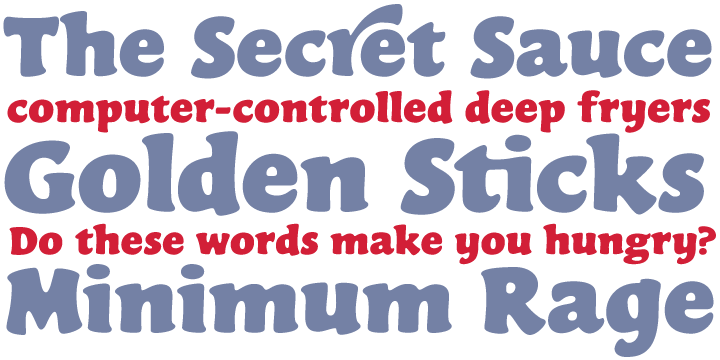
Friedrich Poppl’s early studies were in calligraphy under, among others, Professor Herbert Post (Post-Antiqua and Post-Mediaevel) at the Offenbach Colleges of Applied Arts. Poppl continued his studies at the Wiesbaden College of Arts where he later lectured and eventually became Professor of Type and Typography.
Well known as a calligrapher, Poppl’s work was shown in various exhibitions and won several awards in the 1960s. Günter Gerhard Lange, Berthold's Artistic Director, happened to see a poster advertising the 1966 International May Festival in Wiesbaden. Impressed by the type but unfamiliar with its designer, Lange tracked down Poppl at Wiesbaden College. Lange said "In short, that was a man who knew what it was all about, not only a craftsman, but a man with calligraphic ambitions, an emotional, high-spirited man." Thus, Poppl was commissioned by Berthold to design type for its Exklusiv Collection and a close professional and personal relationship was born between Poppl and Lange.
Poppl’s typeface designs include Poppl College, Poppl Exquisit, Poppl Fraktur, Poppl-Pontifex, Laudatio, Laudatio Condensed and Poppl-Residenz. Though all are commercially successful, it was Poppl-Pontifex that broadened his reputation as a typeface designer. In 1982 Berthold awarded Poppl its Golden Grid Award in recognition of his success. That same year, he designed his last typeface, Nero. Poppl died later that year before seeing Nero commercially released.